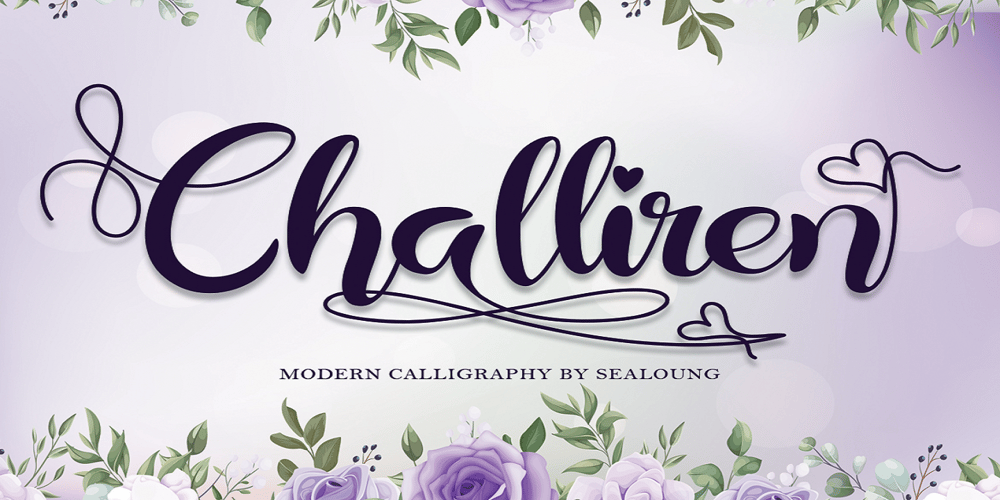
Challiren Font Family was designed by Saiful Anwar and published by Sealoung. Challiren contains 1 styles and family package options. Challiren is an elegant and flowing handwritten font. It is PUA encoded which means you can access all of the glyphs and swashes with ease! It features a varying baseline, smooth lines, gorgeous glyphs and stunning alternates. It maintains its classy calligraphic influences while feeling contemporary and fresh. Fall in love with this font and bring your projects to the highest levels!